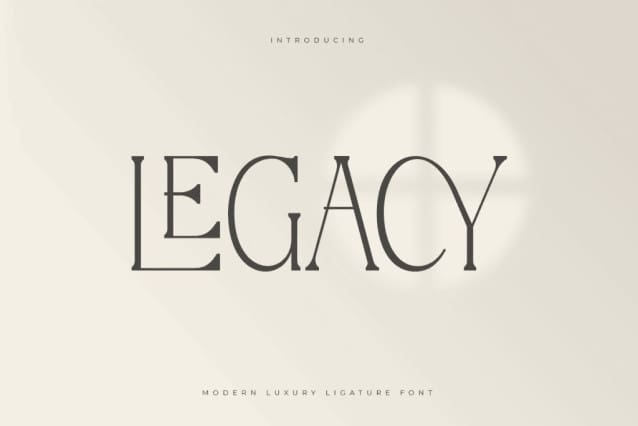
Legacy Font
Legacy Font – A Modern Luxury Serif font that we created especially for elegant branding needs, with a unique shape, will be ready to add value to your brand. It’s so nice to call on a designer or product owner who needs solutions to make their design more sleek and modern. And especially for Legacy font, we have prepared all the characters to help you create unlimited variations for your creative needs.